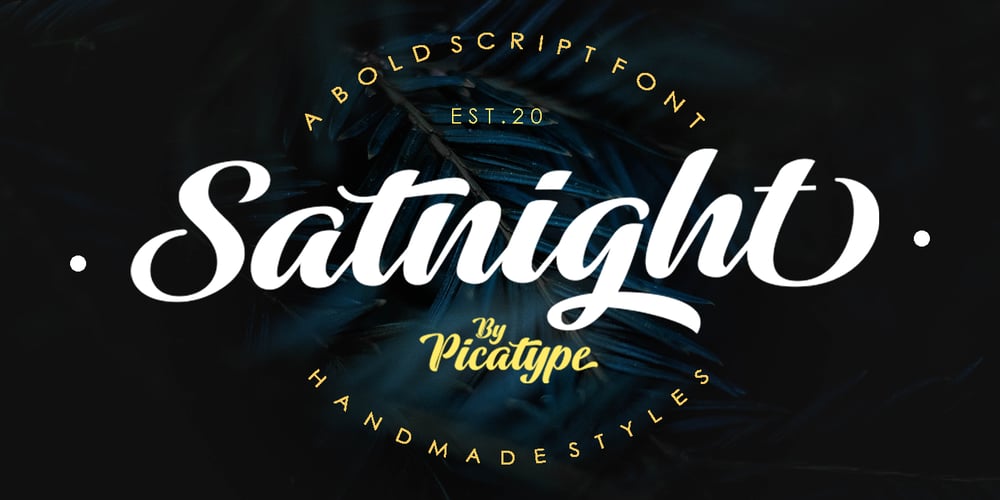
Satnight Script Font Family was designed by Akmal Yusar and published by Picatype. Satnight Script contains 1 styles and family package options. Introducing Satnight, a classy and contemporary modern script font.This versatile script typeface includes many different alternatives for each lowercase letter. It’s fun to use because every word can be changed according to your wishes.Satnight offers beautiful typographic harmony for a variety of design projects, including logos & branding, wedding designs, social media posts, advertising & product design.That’s it! I hope you enjoy this type!! Let me know what do you think!!!Feel free if you have a question, please contact me : picatypestudio@gmail.comThank you and keep creative!